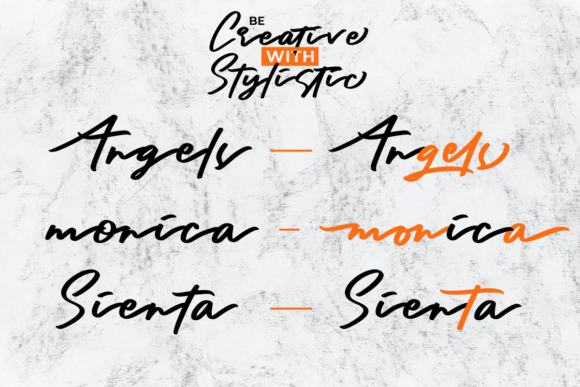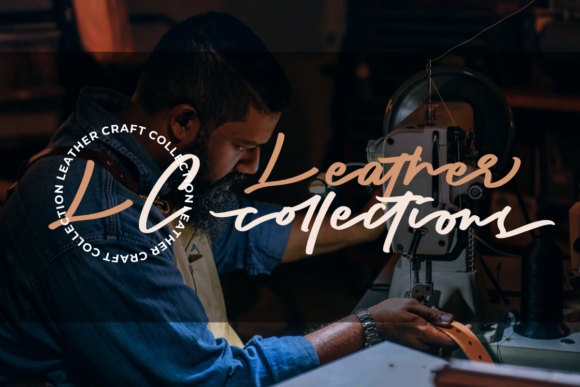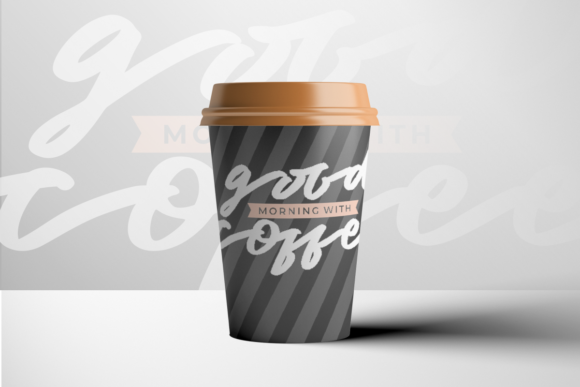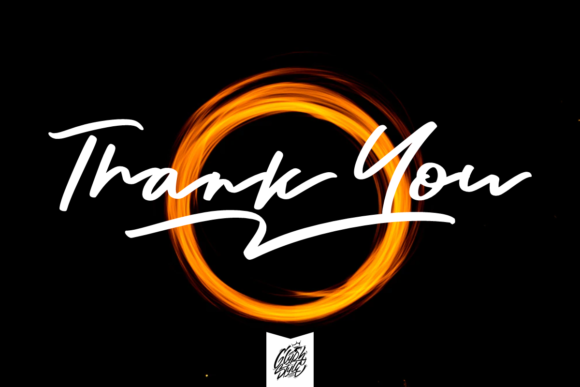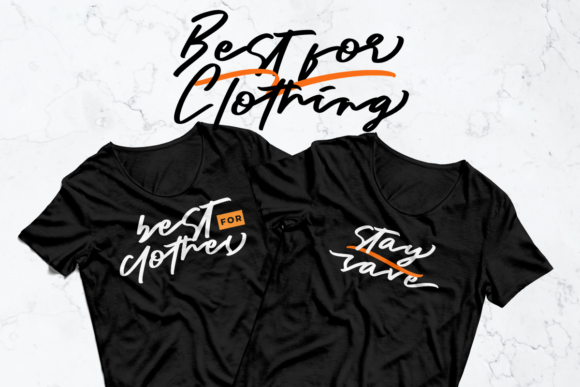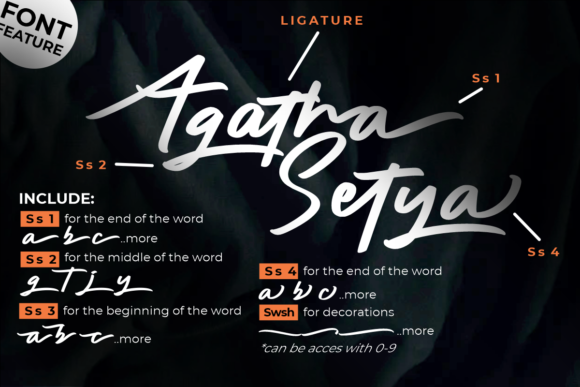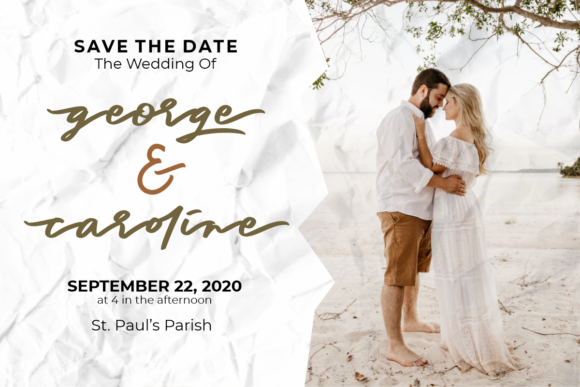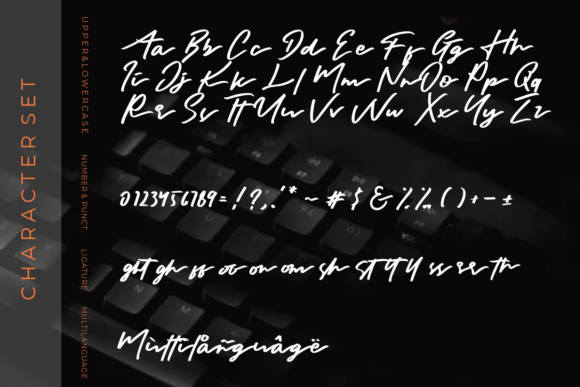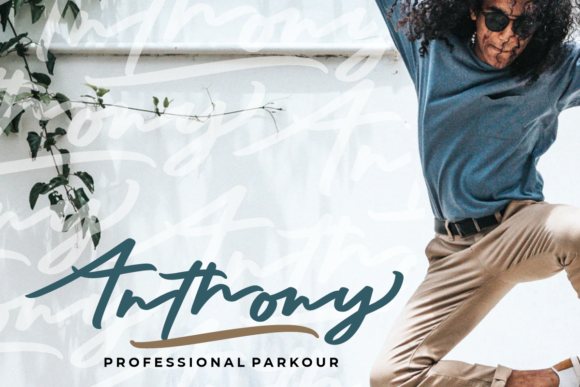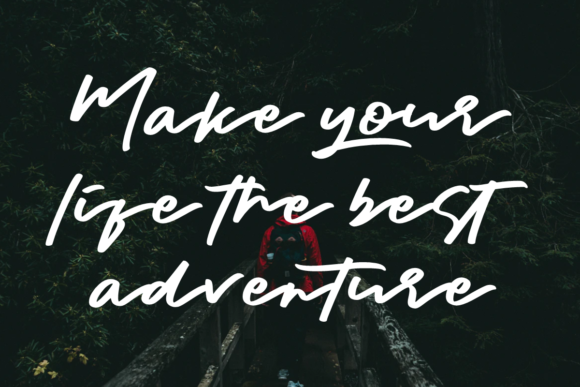
Gothic Font
About Gothic Font
Gothic is a cool and stylish script font that has the ability of enhance the beauty of your projects. This font is PUA encoded which means you can access all of the glyphs and swashes with ease!